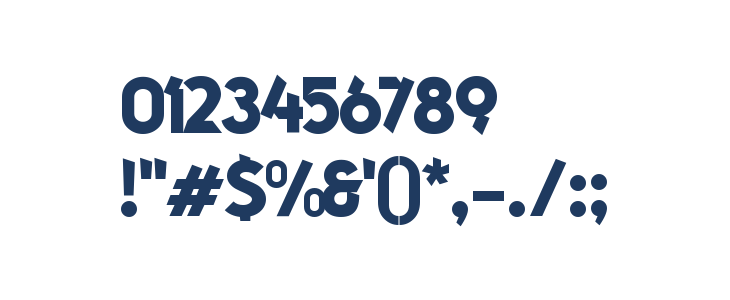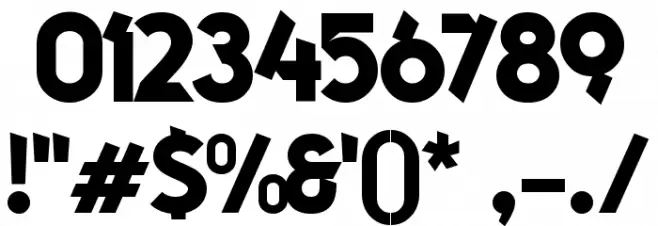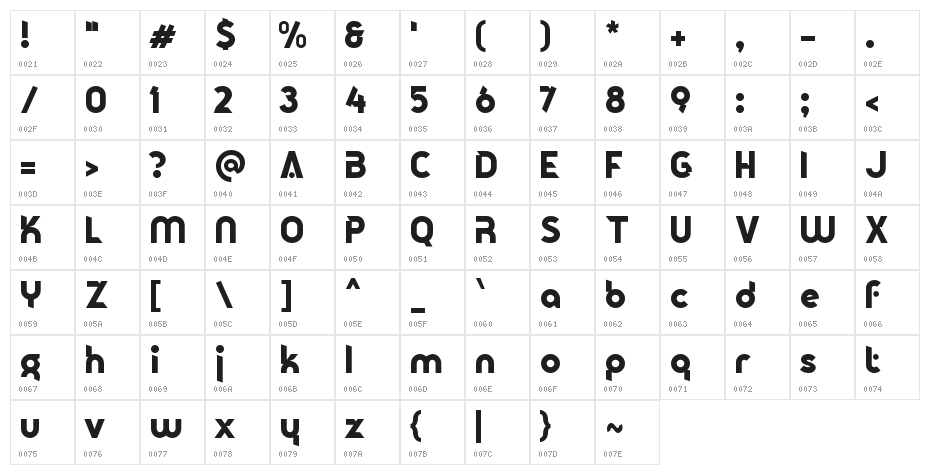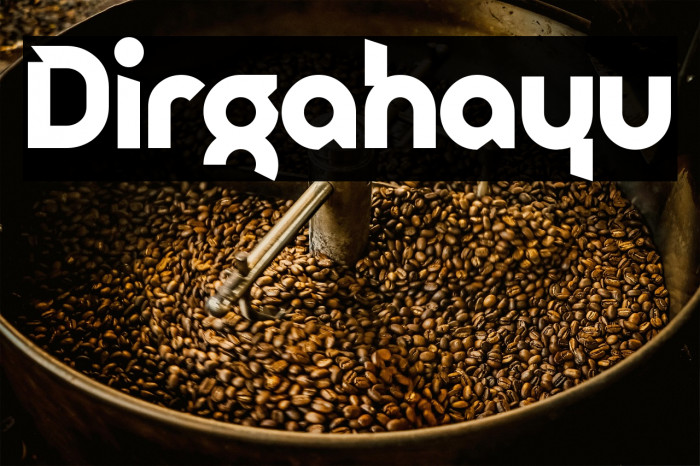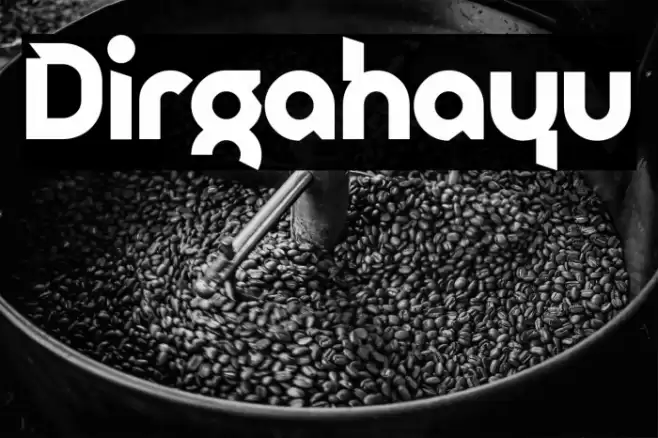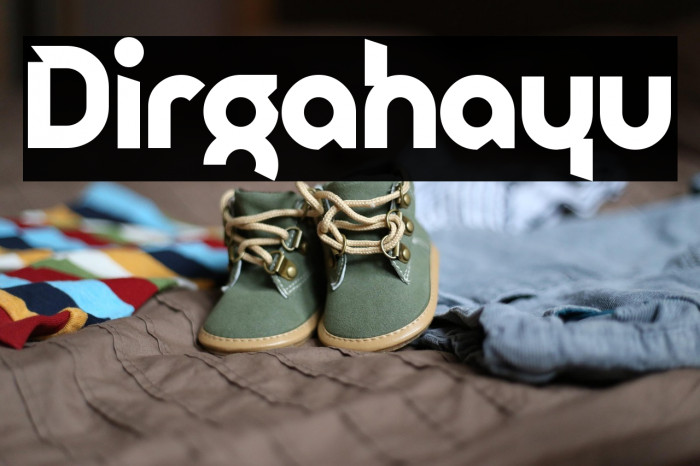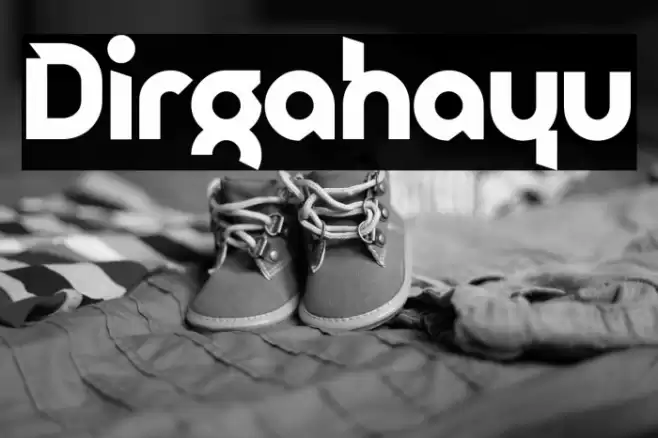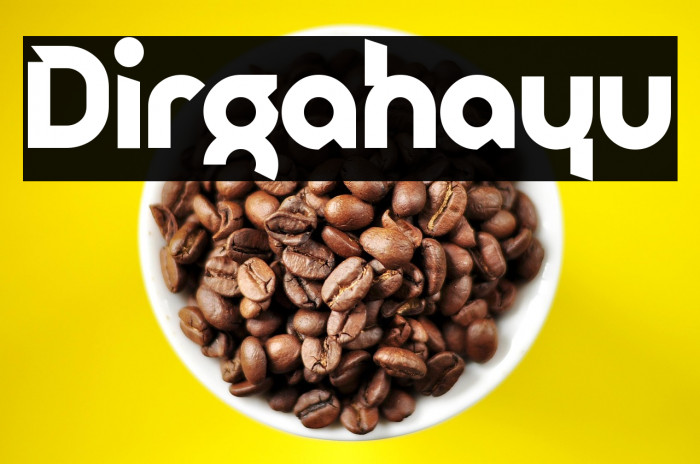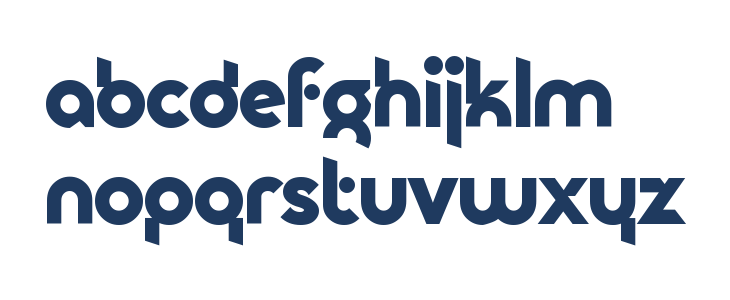
Dirgahayu Font
Dirgahayu Description
This font features a bold and geometric design with a modern flair. The uppercase letters are characterized by strong, angular lines and a consistent stroke width, giving them a robust and impactful appearance. The lowercase letters maintain the geometric style but introduce some curves, adding a touch of softness to the overall look. The numerals are equally bold, with a uniform thickness that ensures readability. Special characters are designed to match the boldness and geometric nature of the alphabet, making them suitable for various design applications. The font's unique style makes it stand out, ideal for projects that require a modern and assertive typeface.
| Proposed Projects | Ideal for branding, posters, headlines, and any design requiring a strong visual impact. |